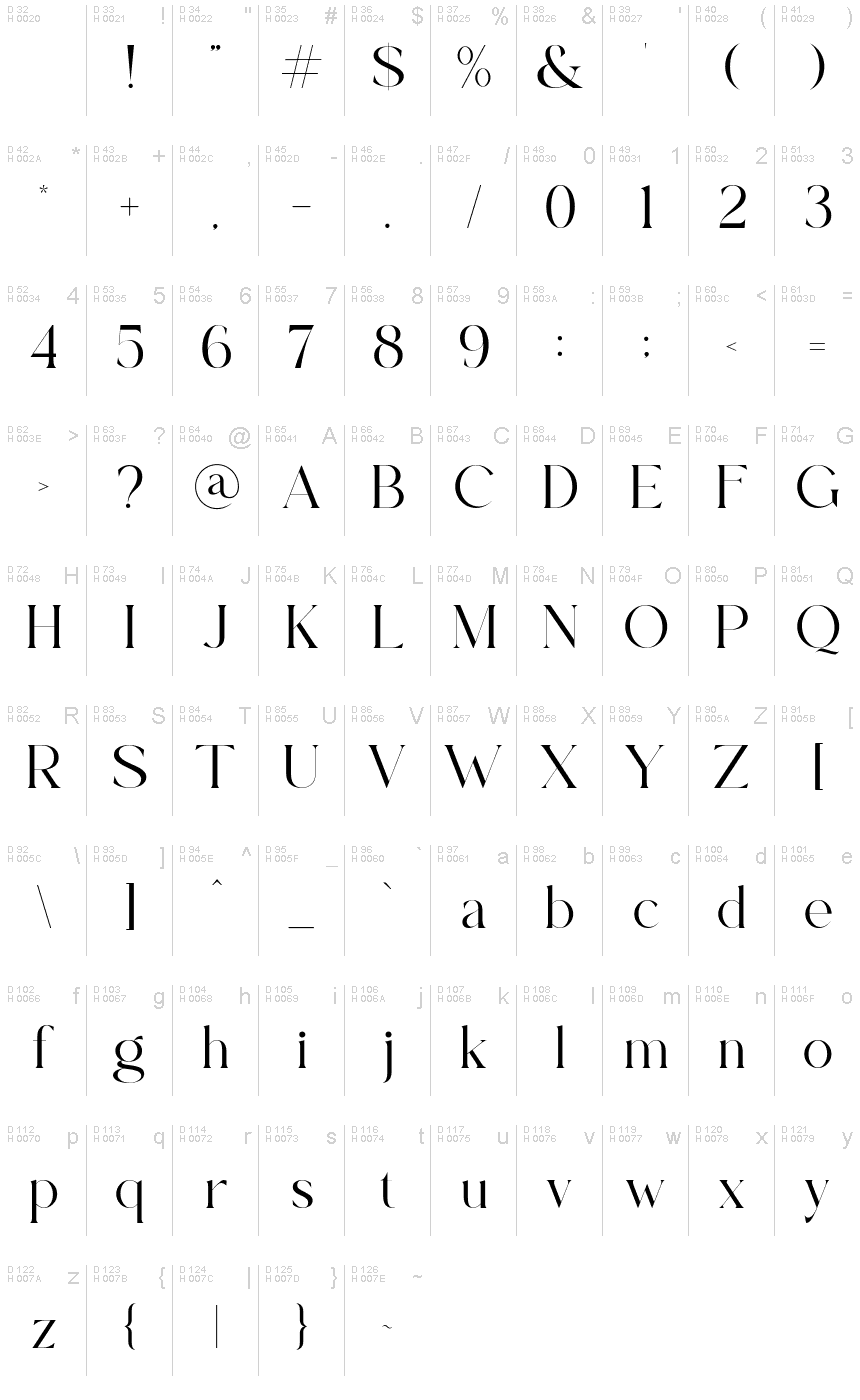
Stigfier
Stigfier, designed by Dwi Sulistyono, emerges as a distinctive serif font that exudes a blend of classic elegance and contemporary flair. Its semi-light weight gives it a graceful yet assertive presence on the page, perfect for designers seeking to imbue their work with both readability and style.
The font's serifs are crafted with meticulous attention to detail, providing a crisp finish that enhances its aesthetic appeal. The gentle curves juxtaposed with sharp angles create a visual rhythm that is pleasing to the eye, making Stigfier an excellent choice for editorial work, branding projects, and sophisticated print materials.
Whether used in large headlines or refined body text, Stigfier's versatility shines through. It holds the potential to elevate creative endeavors across various mediums, offering designers a tool that marries functionality with beauty. The unique characteristics of this typeface ensure it stands out in any context while maintaining impeccable legibility—a testament to Sulistyono's design expertise.